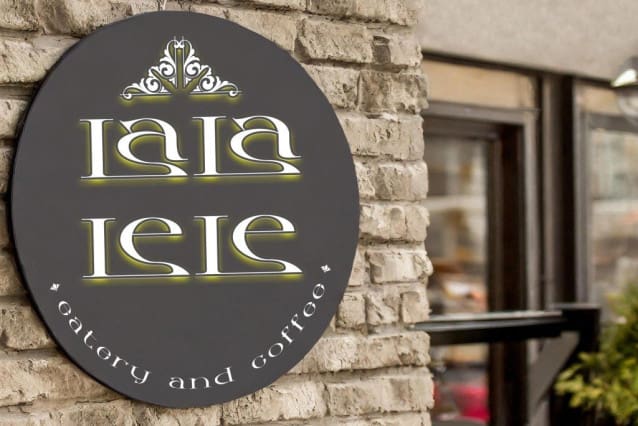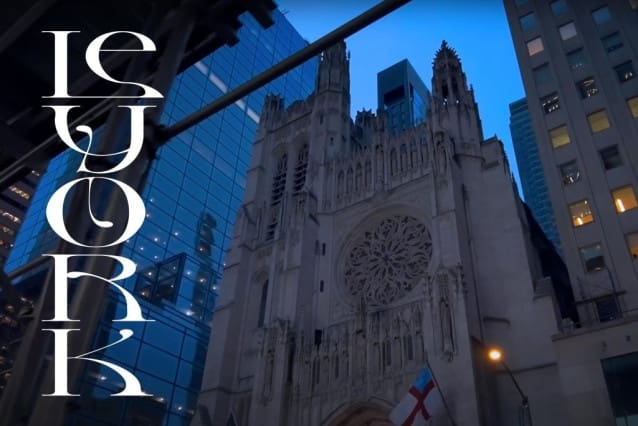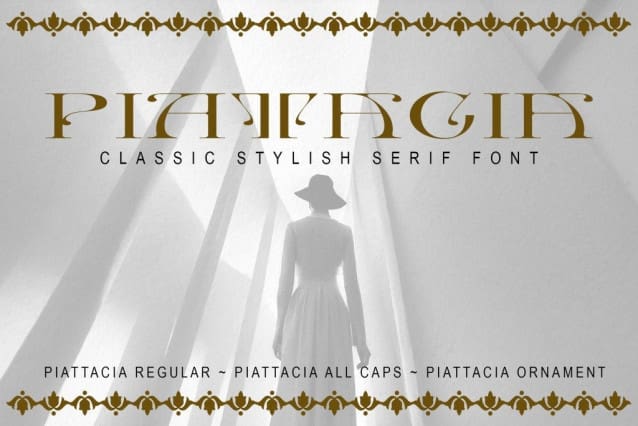
Piattacia Font
Piattacia Font is an exquisite font that seamlessly marries classic elegance with contemporary charm. Its gracefully crafted letterforms embody a sense of refinement and timeless sophistication. Each character is thoughtfully designed, showcasing delicate lines and gentle curves that elevate its visual appeal.